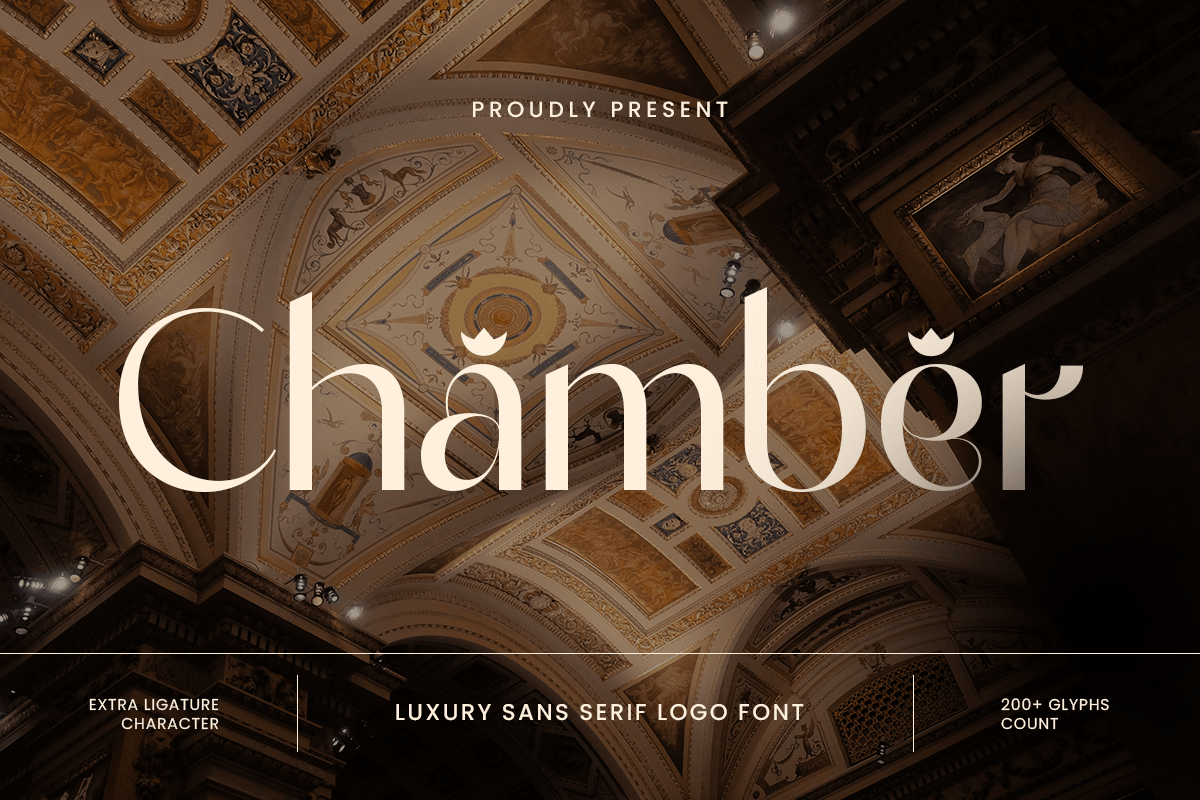
Chamber
-Luxury Sans Serif Logo Font
Chamber - Luxury Sans Serif Logo Font
Chamber is a luxury sans serif logo font designed to deliver elegance through simplicity. With clean lines, balanced proportions, and a confident modern presence, this typeface creates a premium look that feels refined, professional, and timeless.
Perfect for luxury branding, modern logos, fashion labels, beauty brands, corporate identities, and upscale editorials, Chamber works seamlessly across logos, packaging, websites, social media visuals, signage, and print materials. Its sans serif construction keeps layouts clean and contemporary, while its subtle luxury tone elevates the overall brand perception.
Whether you’re building a high-end startup identity, a minimalist luxury brand, or a polished corporate logo system, Chamber provides a sophisticated typographic foundation that looks expensive without being overstated.
Chamber – Luxury Sans Serif Features
• Clean luxury sans serif letterforms for premium logotypes
• Modern, elegant style with strong brand presence
• Ideal for logos, branding, packaging, and editorials
• Perfect for fashion, beauty, corporate, and boutique design
• Excellent readability for both digital and print projects
• OpenType features for refined typographic control
Define modern luxury with Chamber - a sans serif logo font built for refined, premium branding. ✨